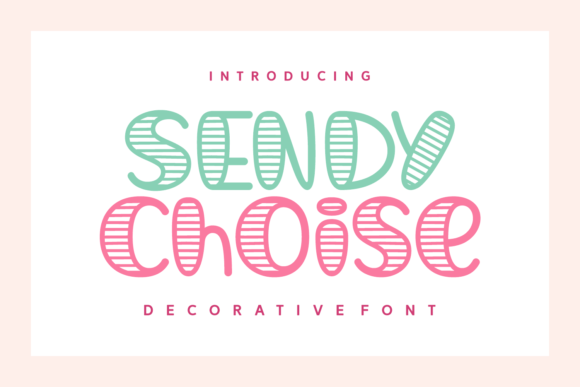
Step into the realm of charming handwritten elegance with Sendy Choise, a uniquely decorative font that effortlessly adds a touch of whimsy to your creative projects. Its graceful strokes and playful personality make it the perfect choice for expressing your individuality in a delightful and captivating manner.
Dive into a world of endless possibilities with Sendy Choise. Whether you're designing heartwarming scrapbooks, crafting engaging social media posts, or creating captivating logos and business cards, this font is your perfect companion. Its versatility knows no bounds, allowing you to effortlessly infuse a touch of charm and uniqueness into any project you embark on.
Sendy Choise is more than just a font; it's an invitation to let your creativity soar. Its playful nature ignites a spark of imagination, inspiring you to explore new design horizons and create truly captivating content that resonates with your audience. Whether you're a seasoned graphic designer or just starting your creative journey, Sendy Choise will undoubtedly become your go-to font for adding that special touch of magic to your projects.
So, embrace the allure of Sendy Choise today and embark on a delightful adventure of creative expression. Let its whimsical charm captivate your audience, leaving them utterly enchanted with your designs. Step into the world of Sendy Choise and unlock the limitless possibilities of creative delight.